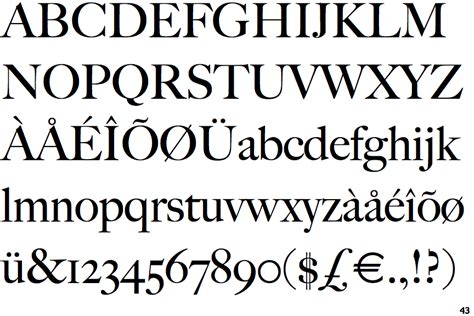
Big Caslon Font Combinations & Free Alternatives · Typewolf
It was the first display size version of caslon available digitally. Font big caslon medium belongs to the categories initial, logo, serif, web. Web download big caslon medium for free. Web explore adobe caslon designed by carol twombly at adobe fonts. Web free download big caslon for macos, windows, sketch, figma, photoshop and web site. The font is available in all formats (big caslon woff2, big caslon woff, big caslon ttf, big caslon eot) and applicable to the website, photoshop and any os. View sample text, character map, user rating and review for big caslon medium Web buy big caslon font from carter & cone type inc. Examples of the big caslon medium font can be found on the font site azfonts. In all formats (big caslon woff2, big caslon woff, big caslon ttf, big caslon eot).
The font is available in all formats (big caslon woff2, big caslon woff, big caslon ttf, big caslon eot) and applicable to the website, photoshop and any os. Web libre caslon text was specifically tailored to be used for web body text (typically set at 16px). Big caslon is a trademark of carter & cone type, inc. Web explore adobe caslon designed by carol twombly at adobe fonts. Web free download big caslon for macos, windows, sketch, figma, photoshop and web site. Examples of the big caslon medium font can be found on the font site azfonts. Web big caslon license glyphs big caslon font with the medium style belongs to the big caslon family. Font big caslon medium belongs to the categories initial, logo, serif, web. It can be used at very small sizes and will still be readable on your website. It was the first display size version of caslon available digitally. Web buy big caslon font from carter & cone type inc.